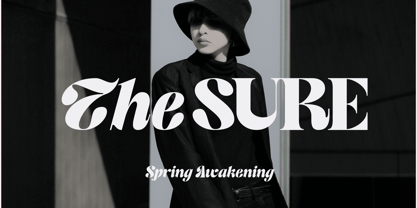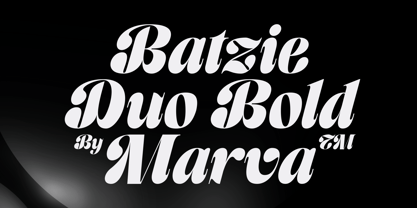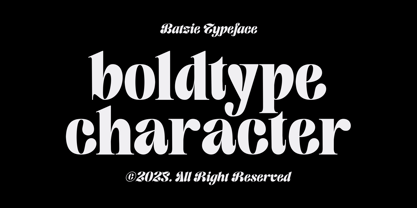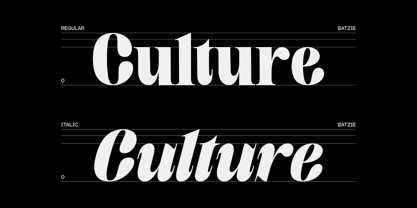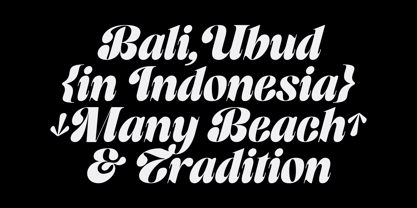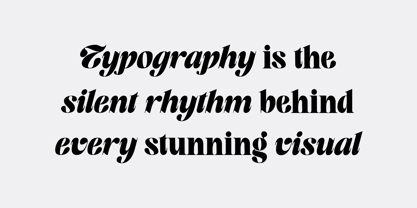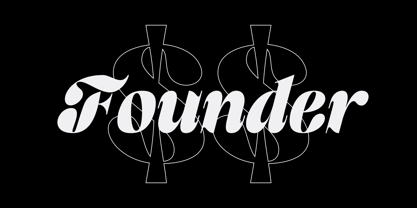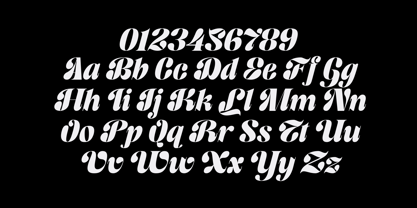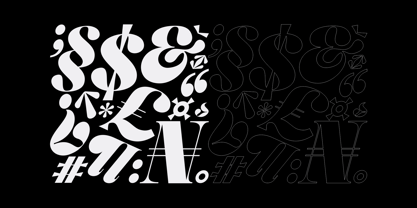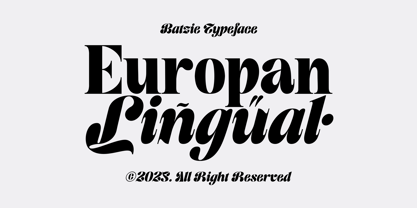
Batzie
by Marvadesign
The Batzie Font Family was designed by Febrie Setiawan and published by Marvadesign. Batzie contains 2 styles and family package options.
Batzie is a graceful and modern Serif Display font that exudes elegance and femininity. Its flowing letterforms are crafted with gentle curves and delicate joins, capturing the charm of authentic handwriting. The strokes are delicately balanced, neither too thin nor too thick, allowing the font to maintain legibility and stylistic appeal. Each character feels carefully drawn, with subtle strokes and flourishes that add a romantic and whimsical touch without overpowering the design. Batzie has a natural rhythm, thanks to its soft, rounded shapes and slightly elongated ascenders and descenders, which give the text an airy and luxurious feel. The italic version further enhances this expression, giving the letters a beautiful forward movement that feels elegant and full of personality. Ideal for branding embracing beauty, fashion, or lifestyle themes, as well as for wedding invitations, feminine packaging, and elegant quotes.
Designers: Febrie Setiawan
Publisher: Marvadesign
Foundry: Marvadesign